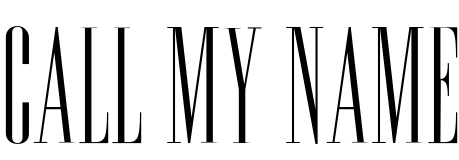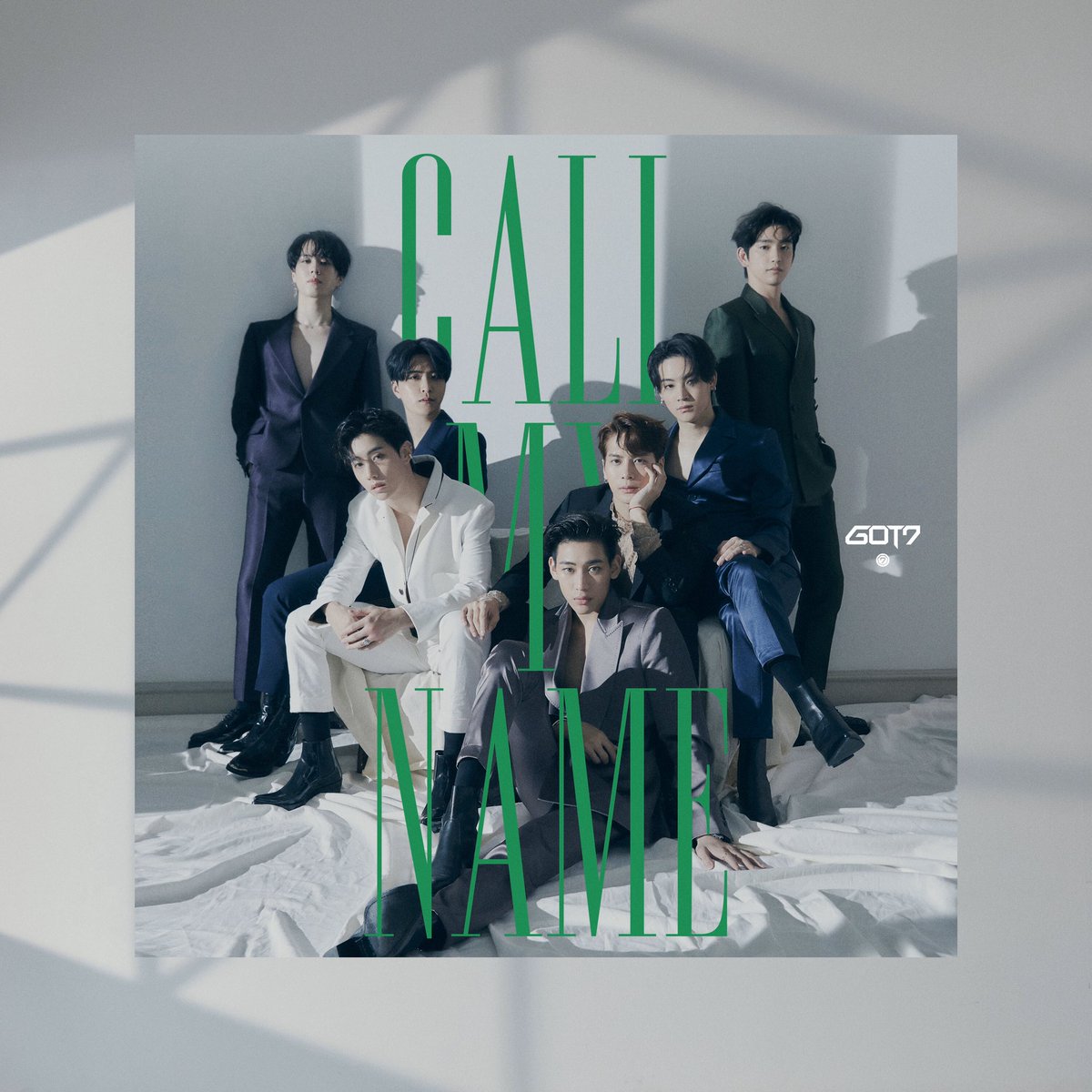
Call My Name Font
Fonts in UseCall My Name is a song by the South Korean boy band Got7, released in 2019. It's a moody and emotional track with a strong beat and expressive vocals.
The title is displayed in all caps using the free font "Edition". The logo can be created with either custom lettering or the "Batman Forever" font.